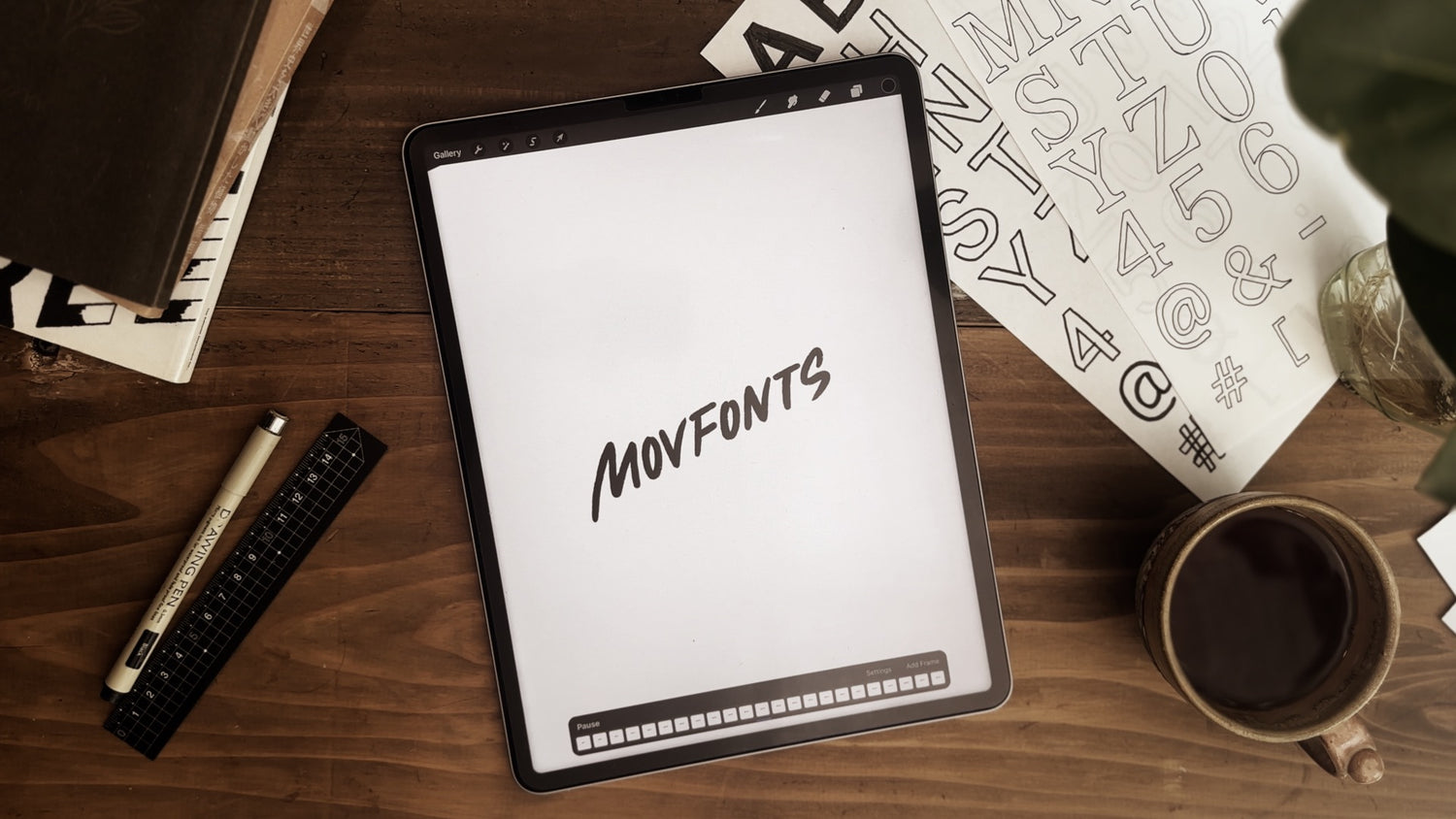
What’s MOVFONTS
MOVFONTS is a hand-drawn animated typography pack, crafted for video creators.
Each letter and symbol is hand-drawn and animated frame by frame,
providing a natural, organic motion that's ready to drag and drop into any project.
This is MOVFONTS
Handmade Motion for Emotion.
MOVFONTS was created to bring a hand-drawn feel into motion design —
adding warmth and a natural sway to your projects.
In a world where everything moves fast and feels too polished,
we value the charm of imperfection — the kind of movement that only hand-drawn lines can carry.
A little wiggle, a slight pause — those are the moments where the human touch lives.
Whether you're editing a vlog, a short ad, or a personal video,
MOVFONTS helps you add a touch of life — simply drag, drop, and go.
Hand-drawn motion carries not just movement, but emotion.
Move naturally.